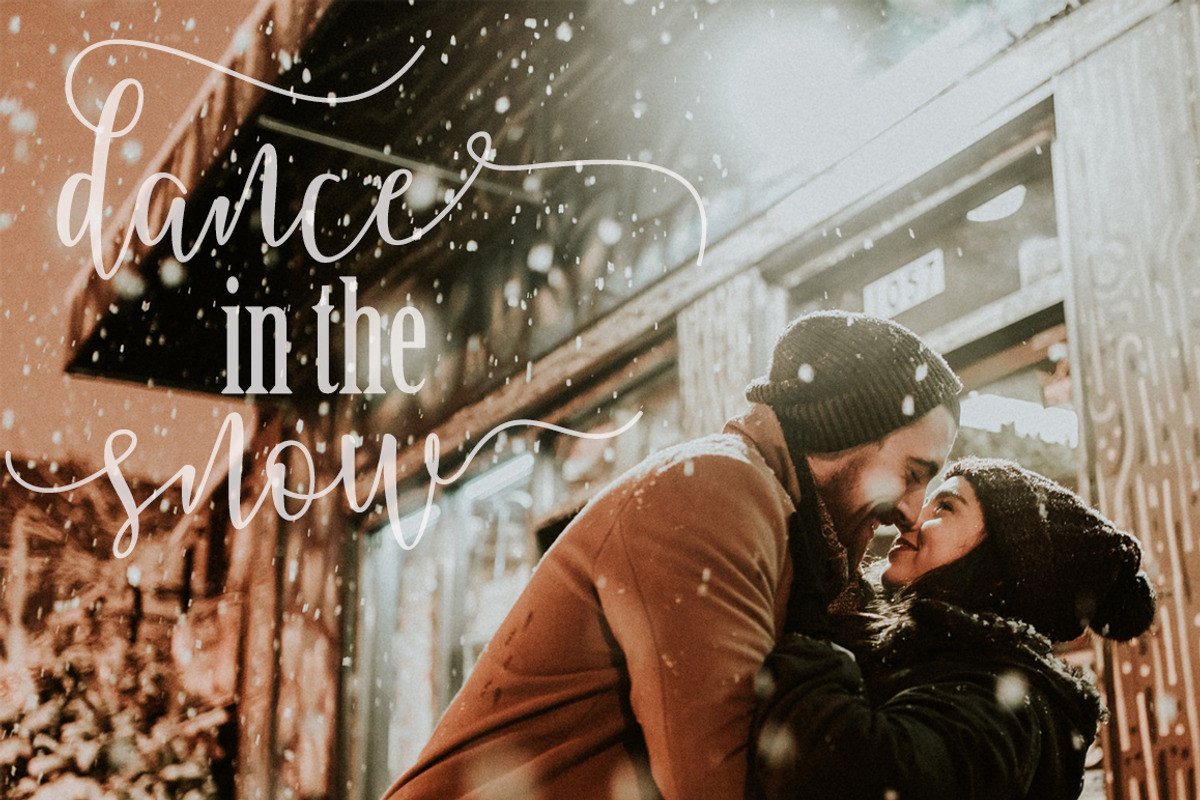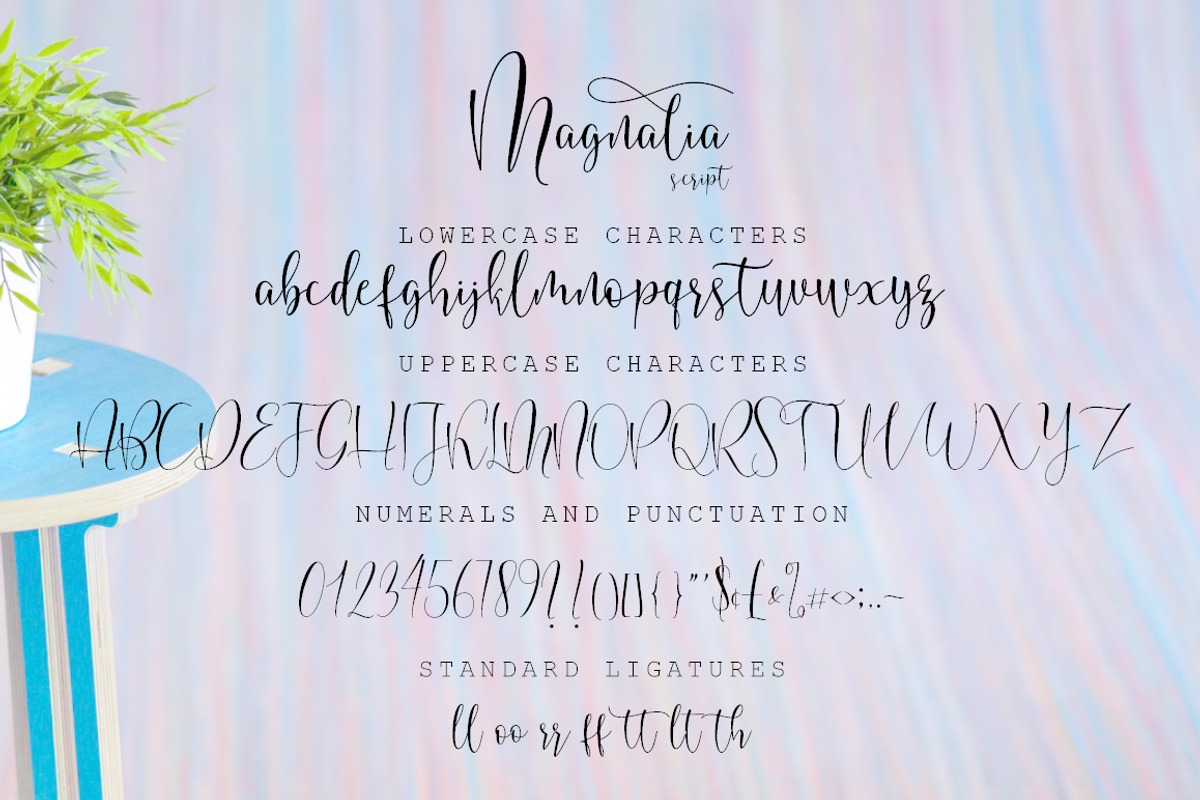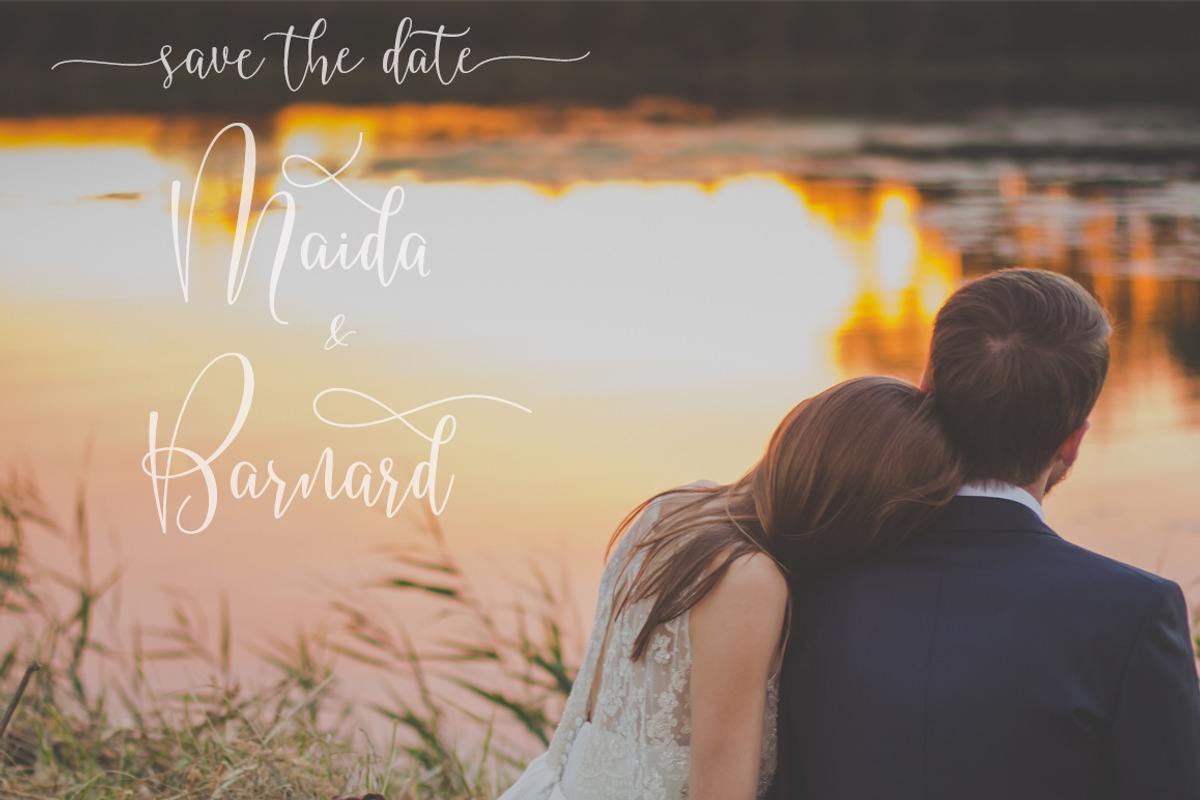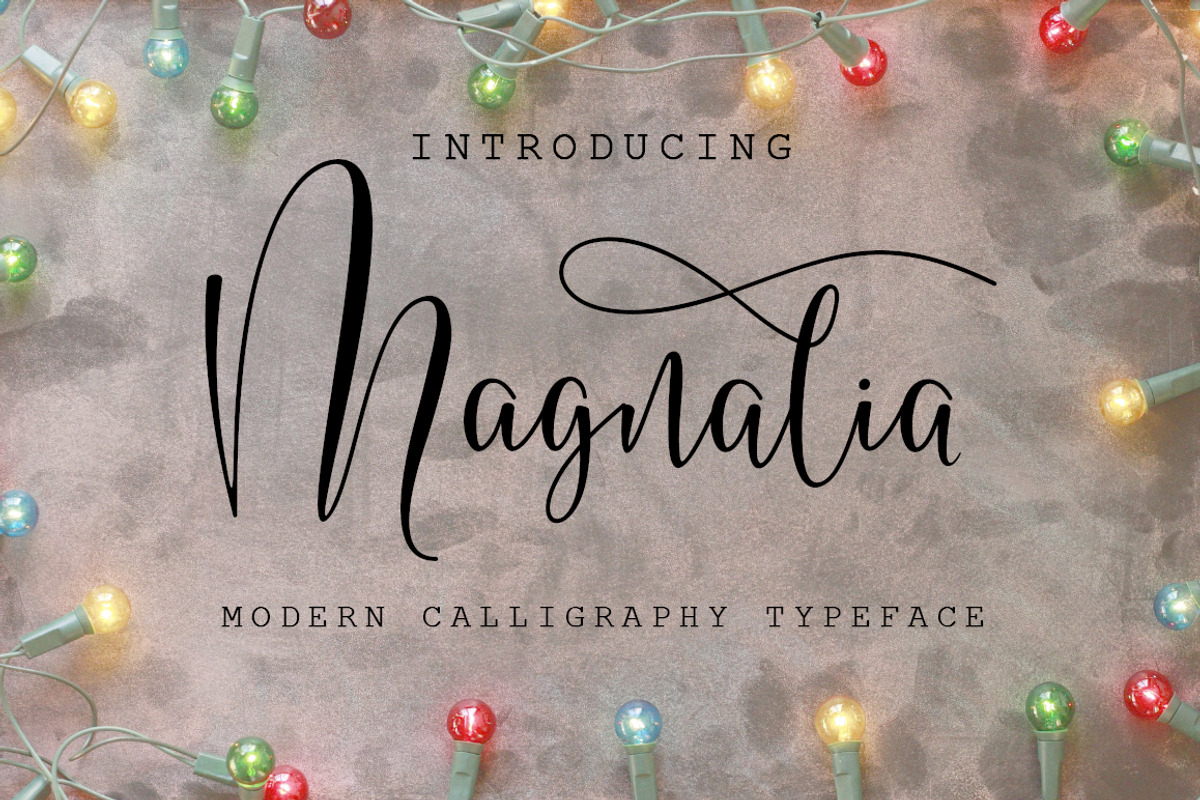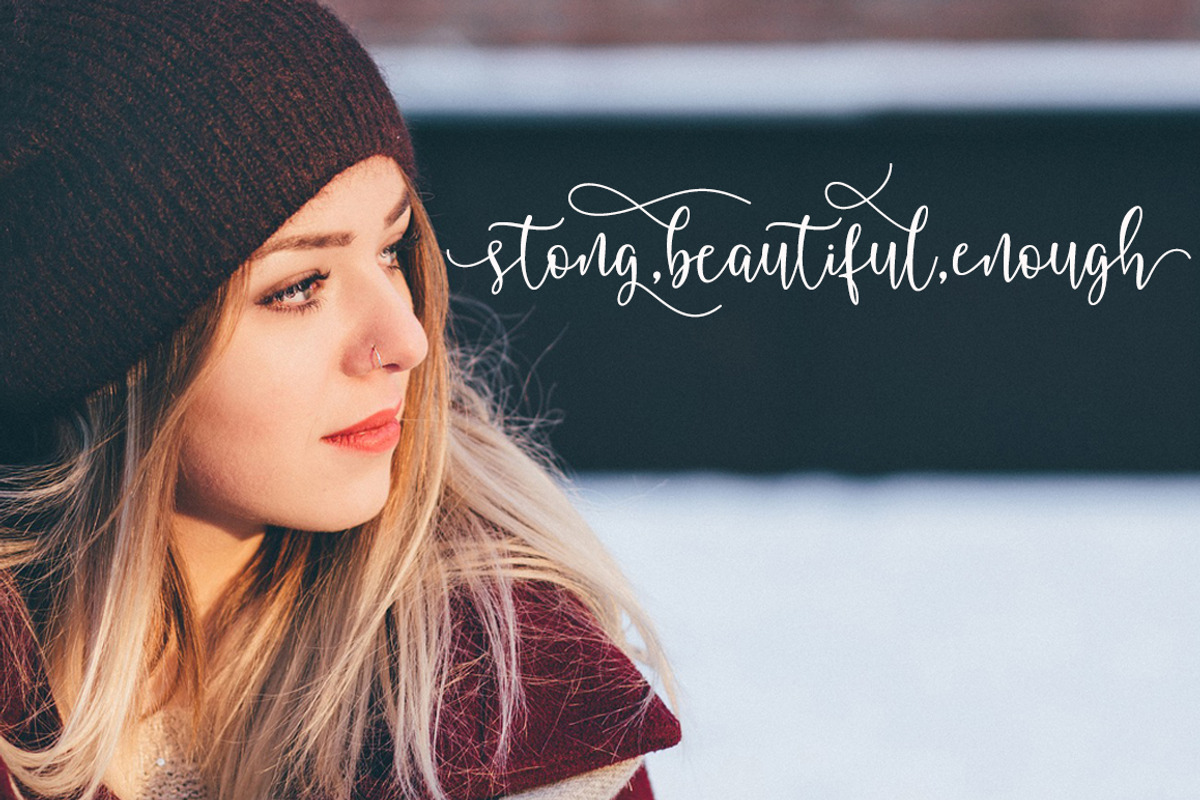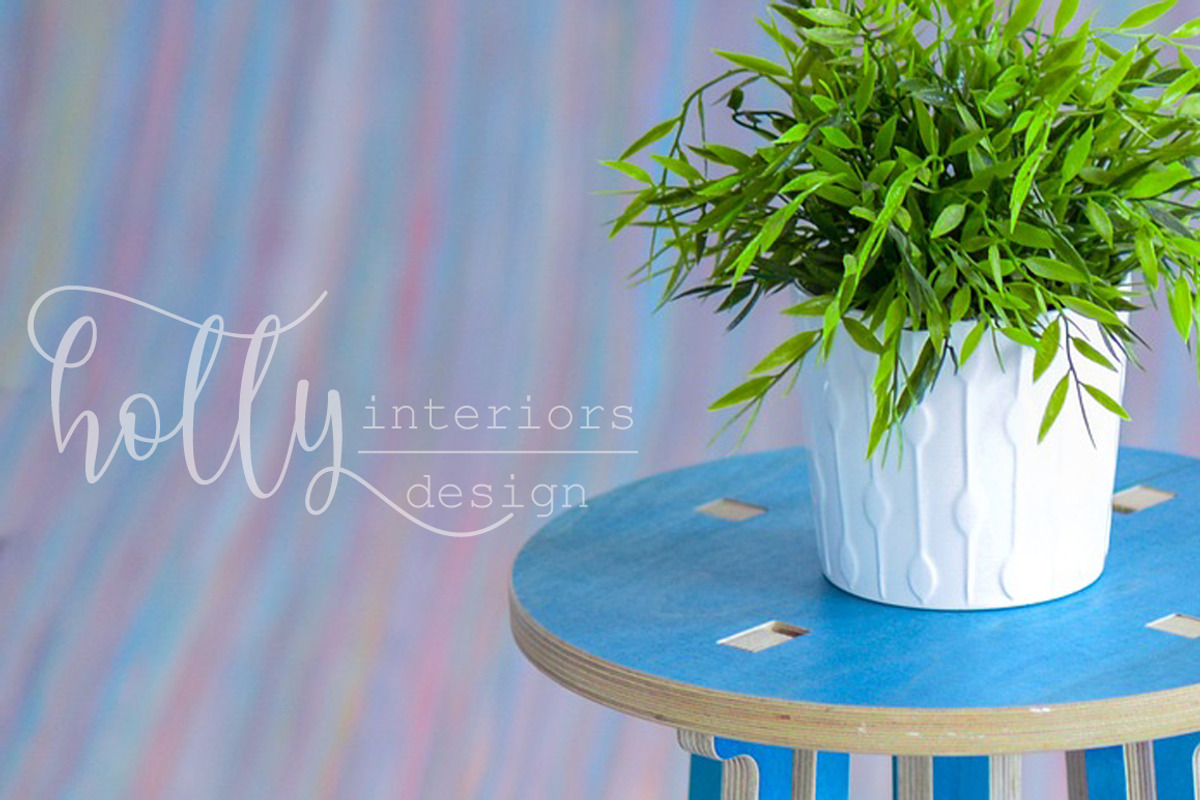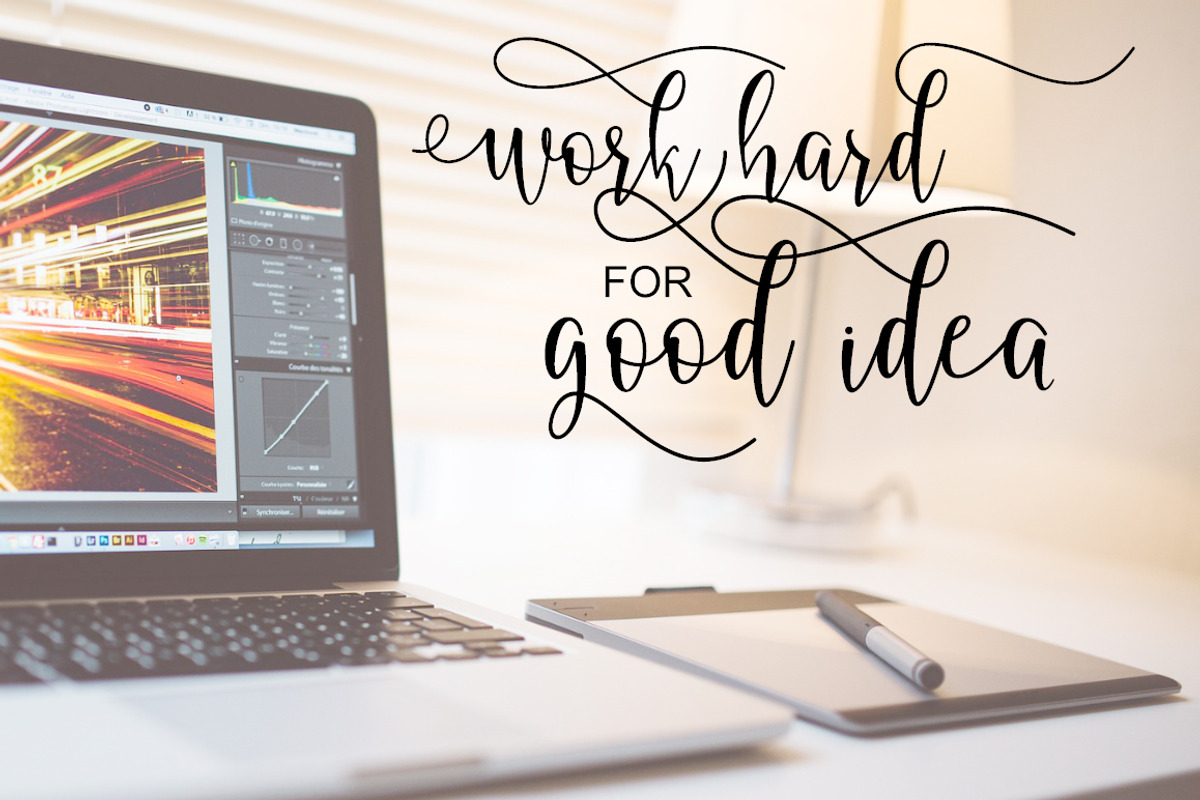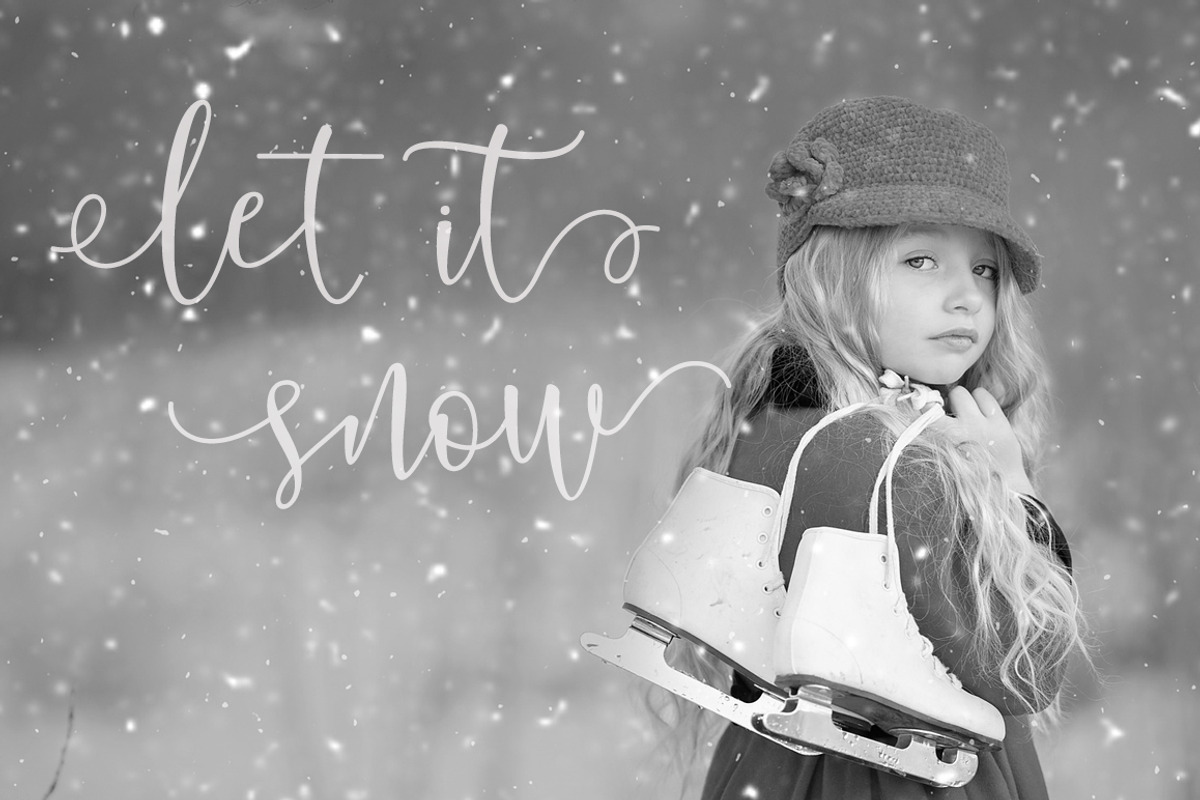
Magnalia Font Script
NEW FRESH ! Magnalia Font Script. It's an modern typeface. Magnalia Font Script, including swashes, ligatures,Alternate and International support for most Western Languages is included. Magnalia Font Script come with 517 glyphs
Magnalia Font Script by Khalidin.Ink fits naturally into Branding, posters, packaging, typography.